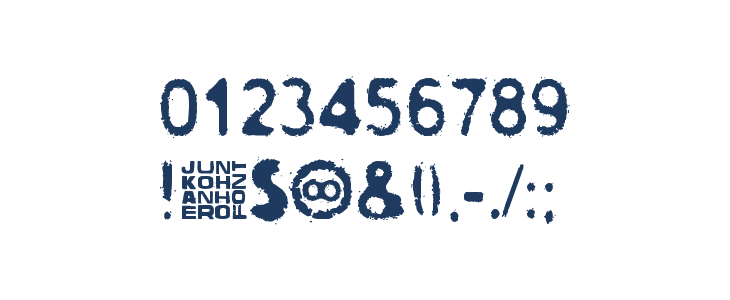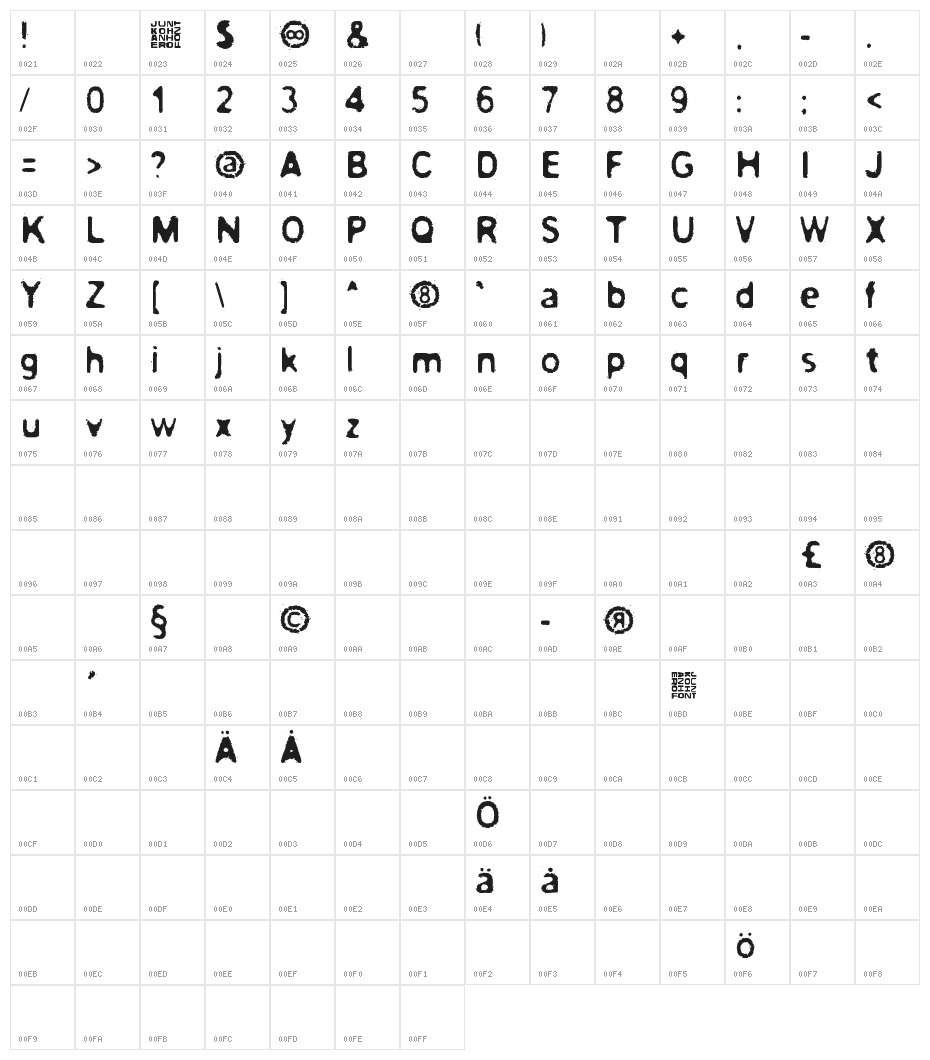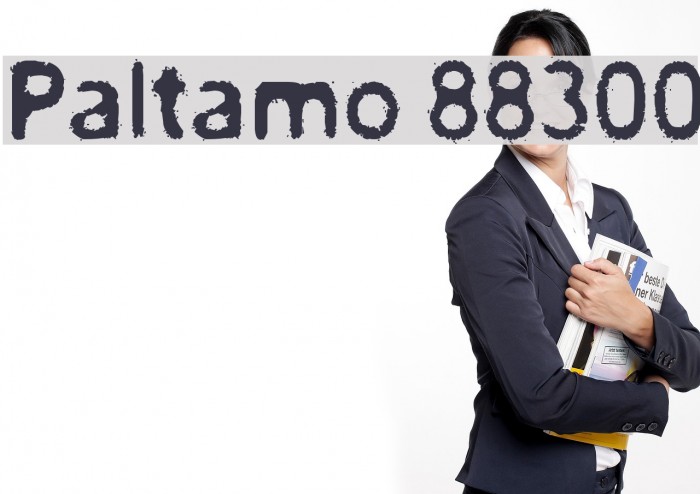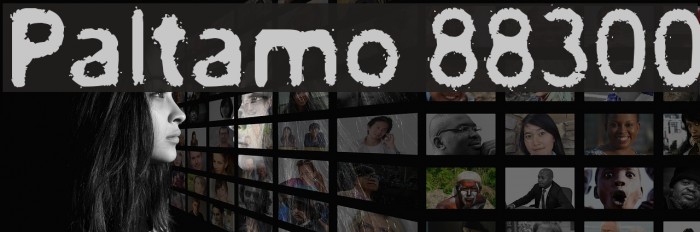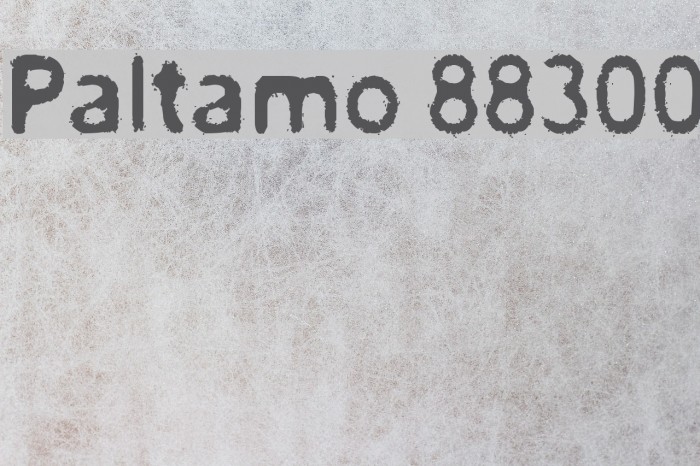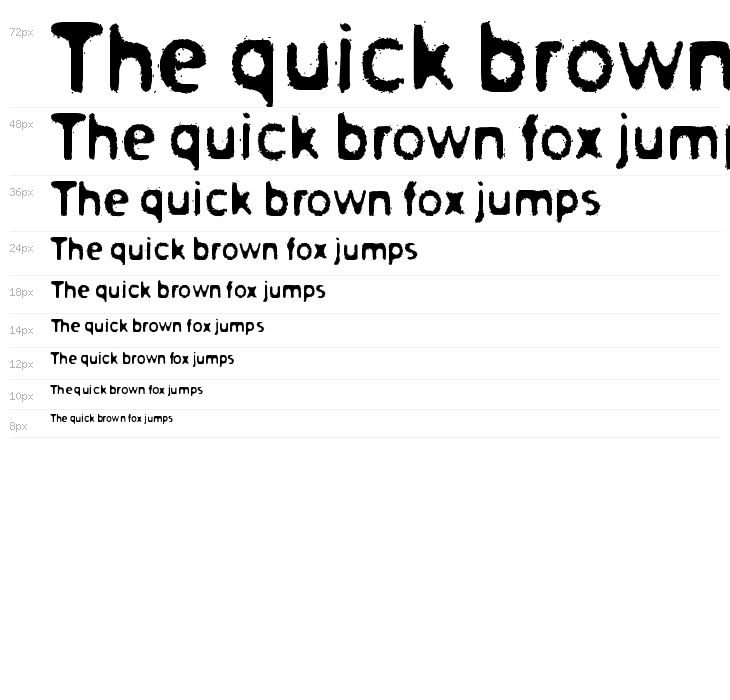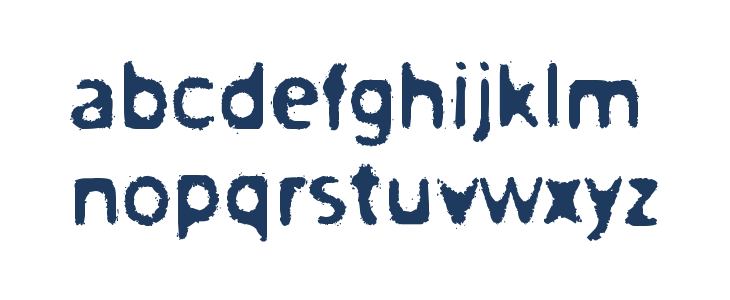
Paltamo 88300 Font
Paltamo 88300 Description
This font exhibits a rugged, distressed style with a hand-crafted appearance. The characters are bold and irregular, giving a sense of raw energy and artistic flair. The uppercase and lowercase letters maintain a consistent style, with rough edges and a slightly uneven baseline, adding to the organic feel. Numbers and special characters follow the same aesthetic, ensuring a cohesive look across all glyphs. This font's unique texture and bold presence make it stand out, ideal for projects that require a touch of creativity and individuality.